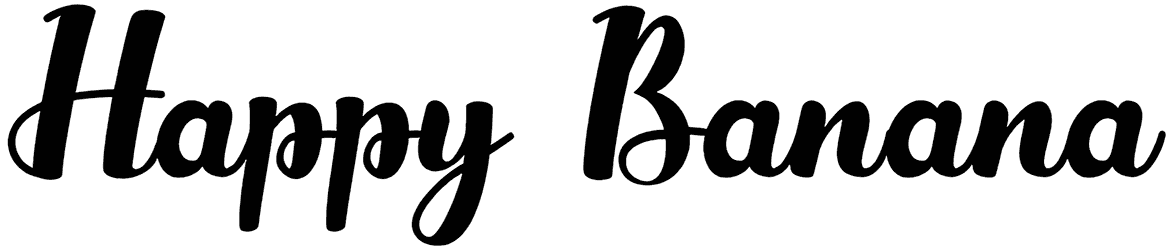
Happy Banana Font
Happy Banana is designed to create a natural look with handwritten letters and some numbers that are legible, unlike other handwritten fonts. The machine mode of this script font is well neutralized due to its rhythmic twists and can create a human and intimate connection between your projects and the audience.
The smooth and natural curves make it easy to imagine using it for creative design, and you can easily turn your mental ideas into reality for implementing logos, certificates, and books.